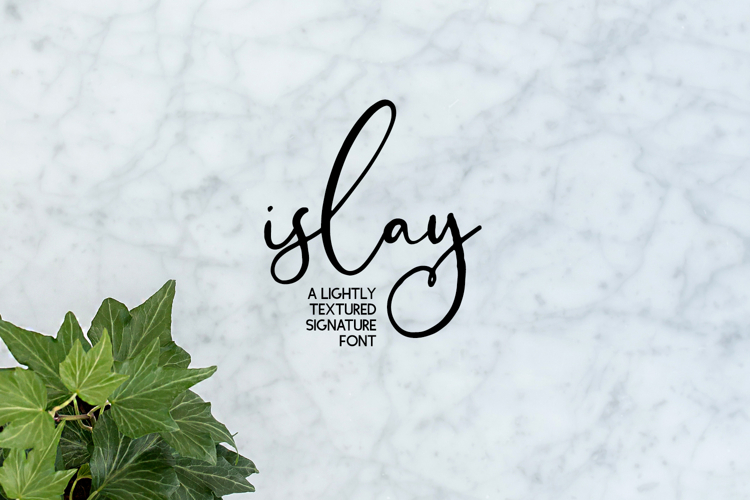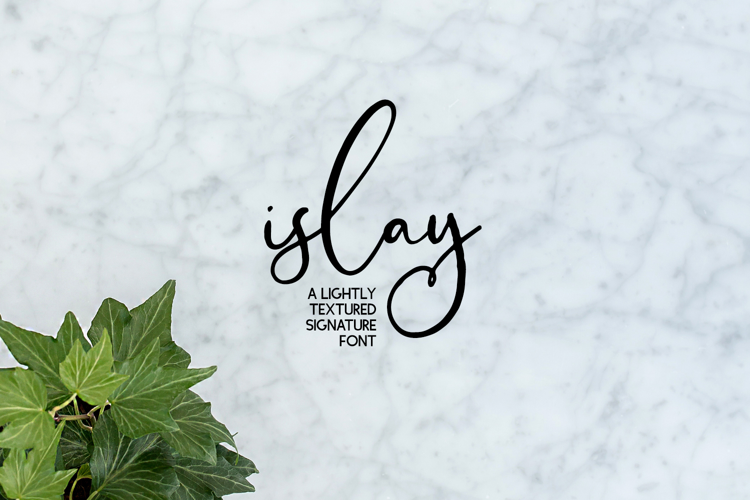
Introducing Islay Script, a signature style font with a slight bit of texture. Islay features exaggerated uppercase characters, ascenders, and descenders, as well as a few fun flourished characters.
Islay Script is best for:
- website design + website accents - think travel blogs, fashion blogs, & more
Islay includes:
- 26 alternate lowercase characters